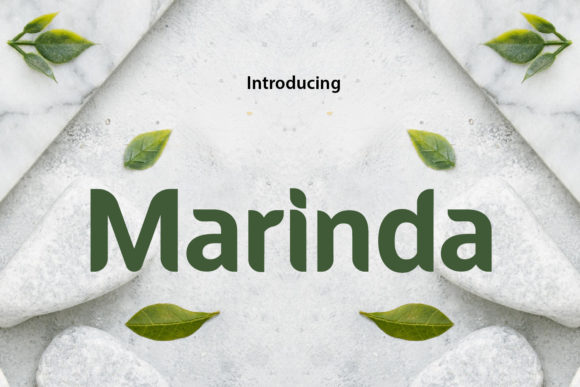
Introducing Marinda Font, the epitome of boldness and simplicity in the world of display fonts. Crafted by the skilled hands of da_only_aan, Marinda is not just a font; it's a statement, a declaration of your unique style and unwavering confidence.
Unleash the power of Marinda and watch your designs transform into captivating masterpieces. Its bold strokes and clean lines demand attention, making it the perfect choice for logos, titles, branding, and any project that craves a touch of sophistication and distinction.
With Marinda, you'll embark on a typographic adventure like no other. Its versatility knows no bounds, allowing you to effortlessly create stunning visuals that resonate with your audience. Whether you're a seasoned designer or just starting your creative journey, Marinda will be your steadfast companion, guiding you towards design excellence.
Step into the spotlight and let Marinda be your beacon of creativity. Its carefully crafted characters will elevate your designs to new heights, leaving a lasting impression on all who encounter them. Experience the thrill of creating designs that captivate, inspire, and leave an unforgettable mark.
Don't settle for ordinary fonts that blend into the background. Choose Marinda, the font that commands attention, exudes confidence, and ignites your imagination. Embrace the power of simplicity and boldness, and let your designs speak volumes with every stroke of Marinda's captivating charm.